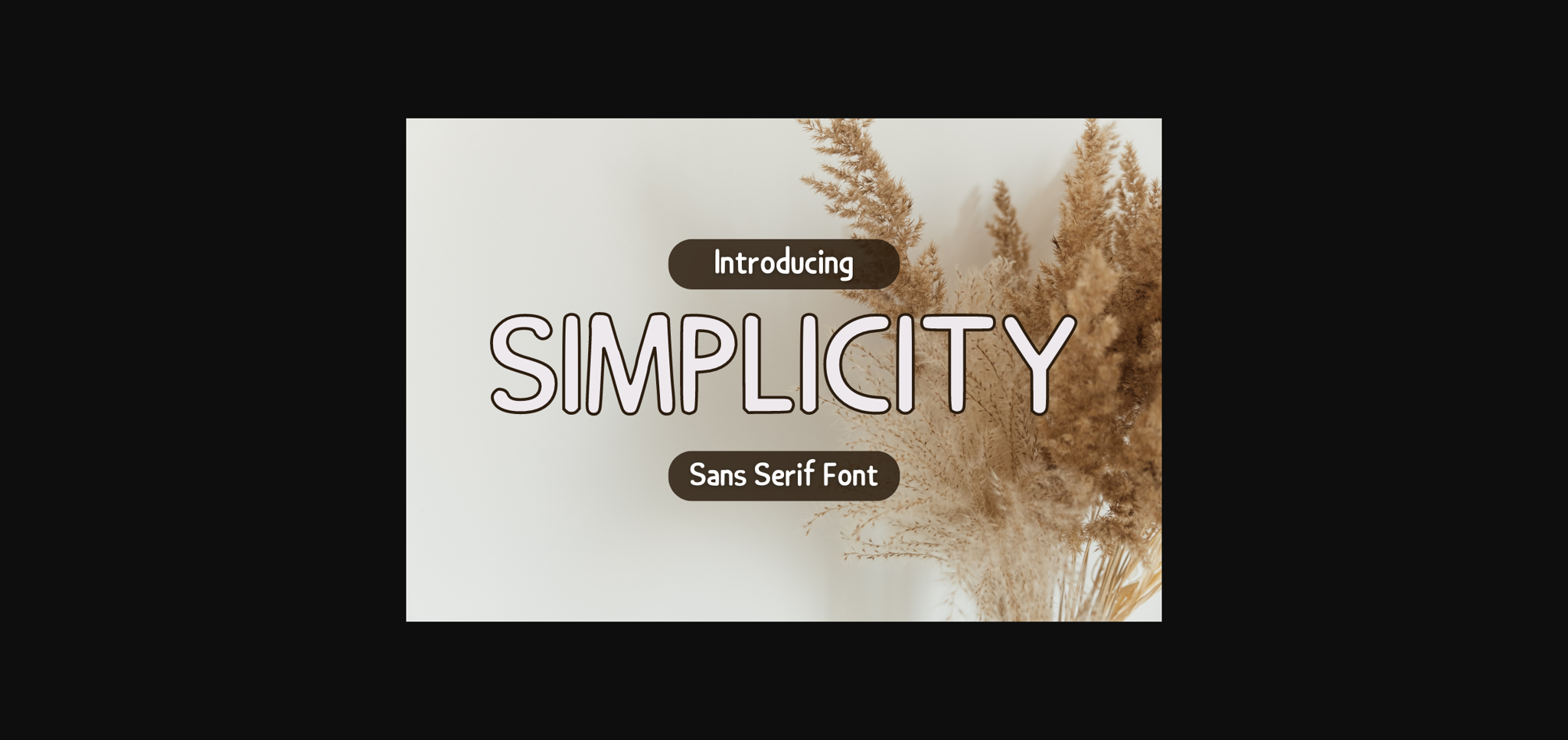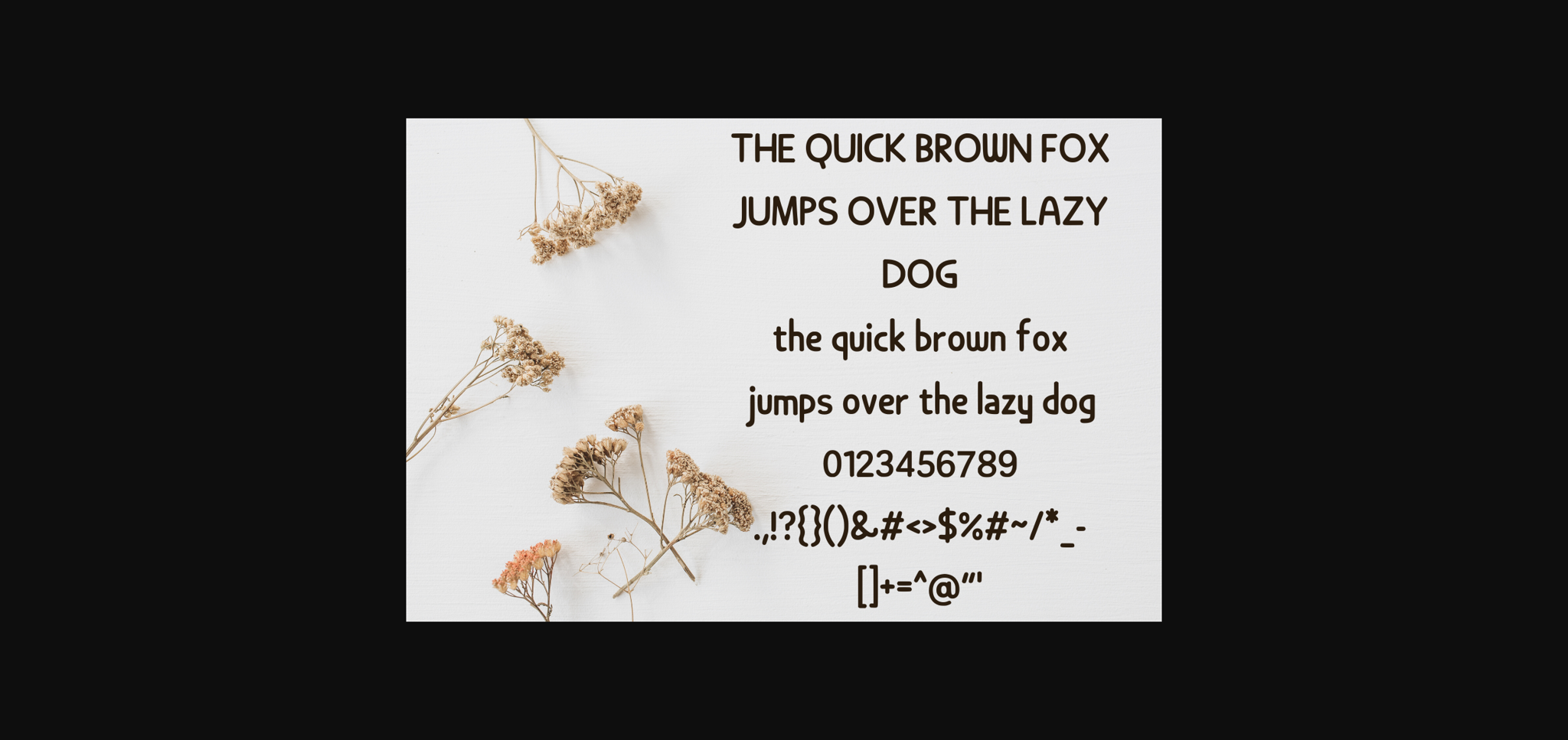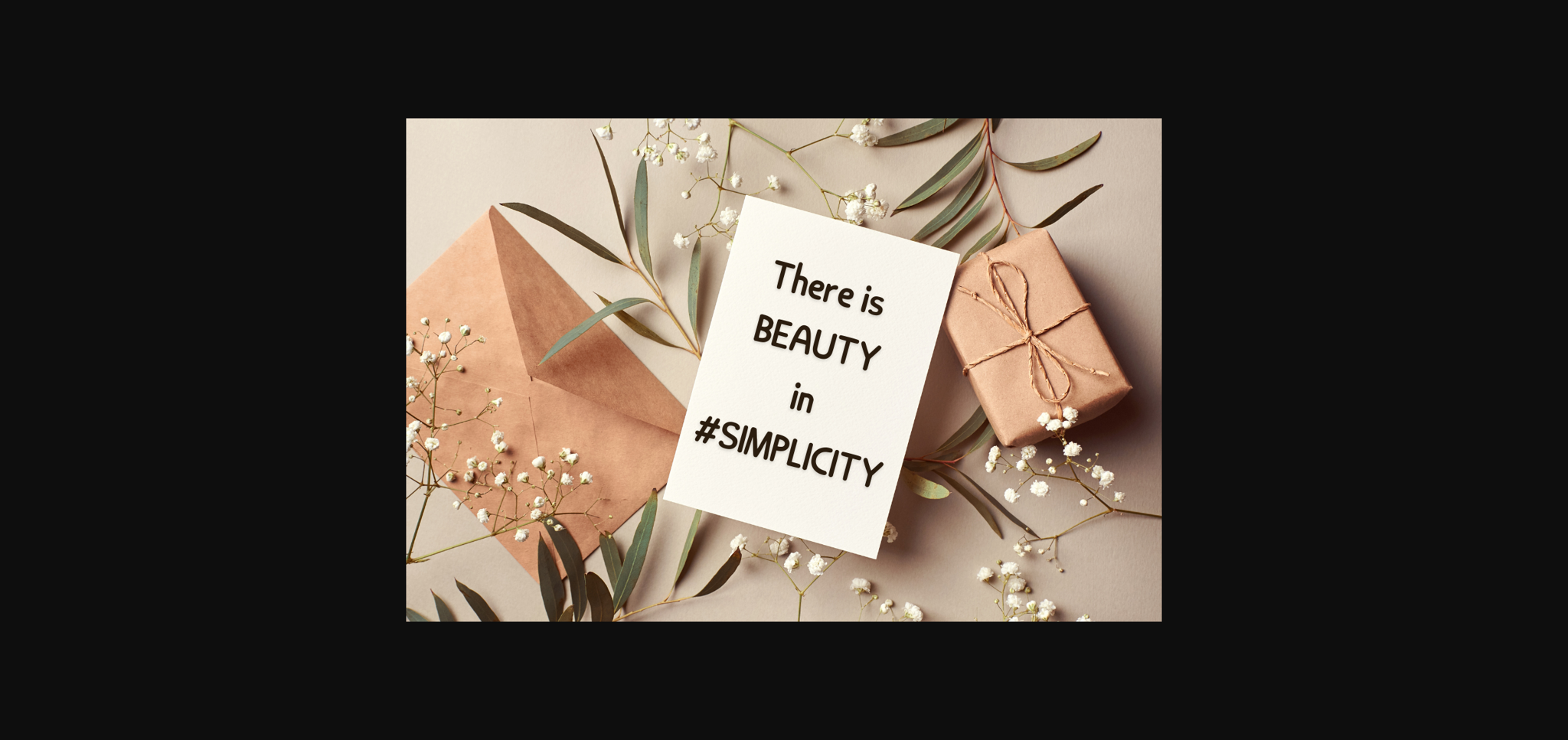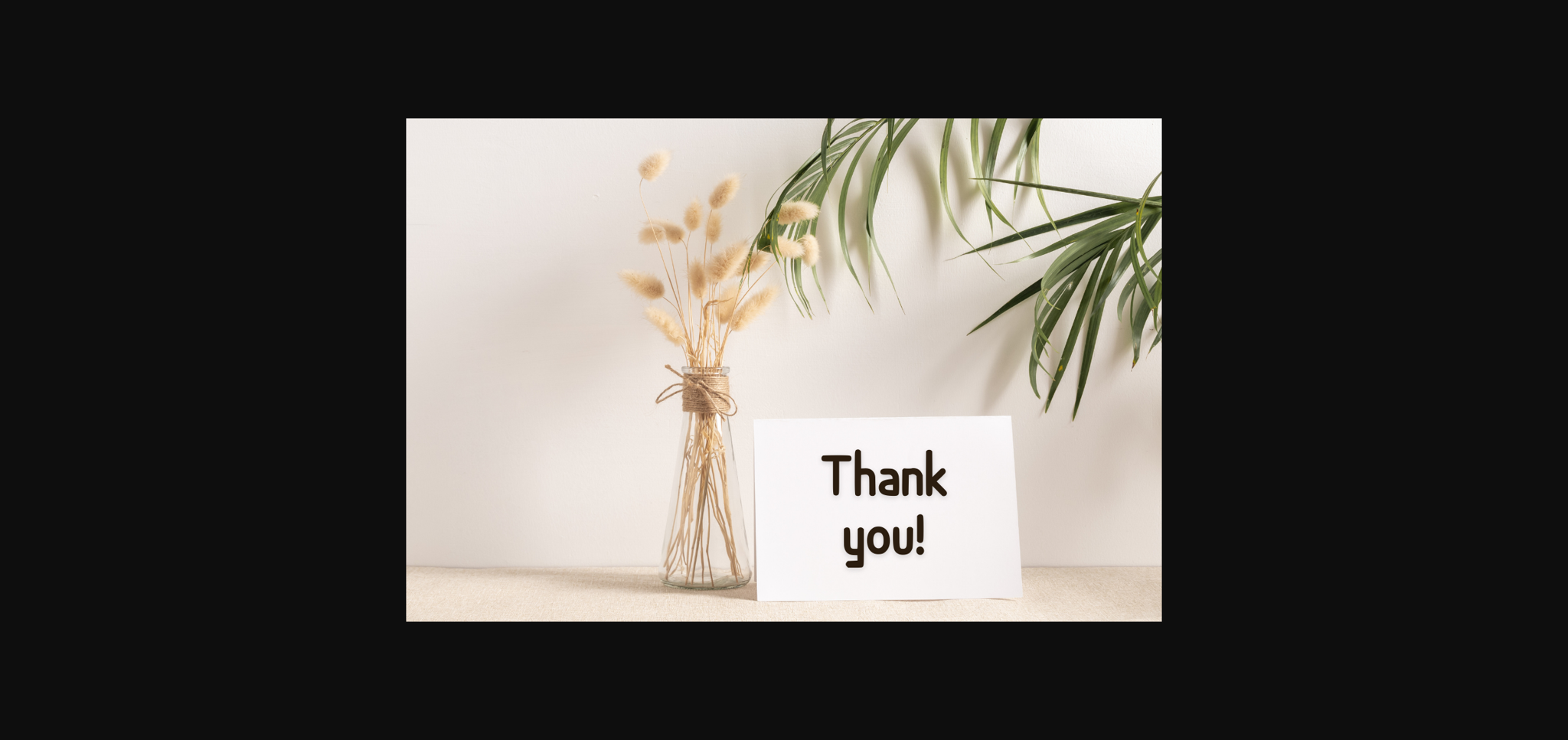
About Simplicity Font
Simplicity is a modern and neat sans-serif font that will suit most of your projects! It will be a good selection for logos, branding, headline, social media posts, or plain text!
Add it to your creative ideas, projects, and notes, and notice how it makes them beautiful and unique!